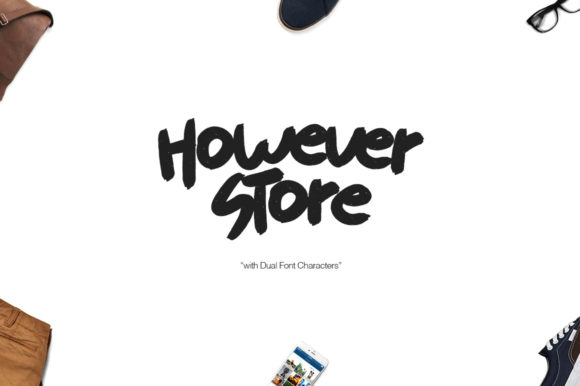
However Store Font
Step into the world of typography and let However Store Font ignite your creativity. This captivating display font is the perfect choice for making a bold statement and injecting a touch of whimsy into your designs.
However Store Font is a visual masterpiece that harmoniously blends delicate curves and striking angles. Its unique character dances across the screen, creating a sense of excitement and intrigue. Each letterform is meticulously crafted to evoke a sense of playfulness while maintaining a touch of sophistication.
With However Store Font, the possibilities are endless. Unleash your imagination and use it to craft stunning logos, eye-catching headlines, and memorable packaging designs. Its versatility shines through, whether you're working on a website, creating social media graphics, or designing a poster.
Immerse yourself in the world of However Store Font and experience the joy of creating designs that captivate and inspire. Its charming and versatile nature makes it the perfect addition to any creative toolkit. Embrace the beauty of typography and let However Store Font elevate your designs to new heights.